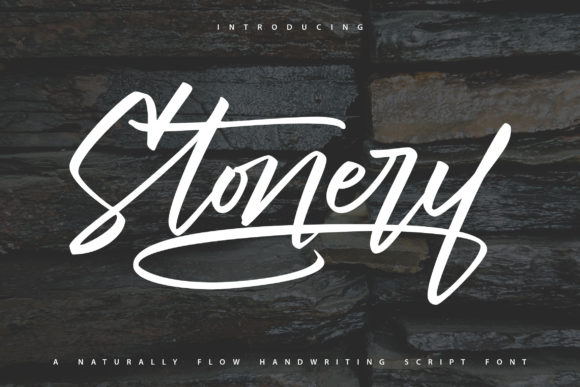
Welcome to the realm of Stonery, a captivating script font family that will ignite your creativity. With its enchanting calligraphy style, Stonery breathes life into every letter, making it an exquisite choice for those seeking to make a lasting impression.
Indulge in the beauty of natural handwriting, effortlessly flowing across your designs. Whether you're crafting heartfelt greeting cards, elevating your branding materials, or creating breathtaking posters, Stonery's undeniable charm will captivate your audience. Unleash your inner artist and let your words dance with the elegance of Stonery.